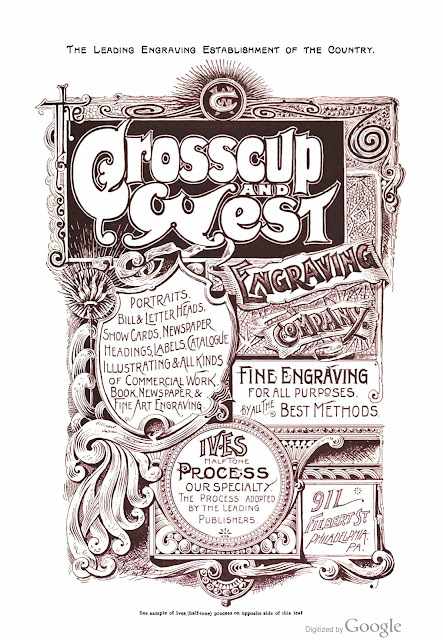
Lettering: Crosscup & West, Engravers
Business Directory of the Leading Wholesale and Retail Business Houses of Philadelphia for 1870
Advertisement below
1870s engraving of Philadelphia businesses below
The Pittsfield Sun
(Massachusetts)
November 27, 1872
Clark & Co., photographers, display a frame of fine specimens of wood engraving at the post office, such as views of buildings, machinery, monograms, book illustrations, &c., being agents for the celebrated engravers, Crosscup & West of Philadelphia. They will take orders for anything desired in this line.
Juniata Sentinel
(Mifflintown, Pennsylvania)
February 19, 1873
$5 to $25 Per Day—Agents Wanted
to sell a Beautiful Portrait, in oil colors, of
the Hero of Gettysburg, the late Maj. Gen.
Geo. G. Meade. Send $1 for outfit or 25 cts
for sample. Crosscup & West, 702 Chest-
nut St., Philadelphia. Pa.
The Cambria Freeman
(Ebensburg, Pennsylvania)
February 21, 1873
$5 to $25 Per Day—Agents Wanted
to sell a Beautiful Portrait, in oil colors, of the
Hero of Gettysburg, the late Maj. Gen. Geo. G.
Meade. Send $1 for outfit or 25 cts. for sample.
Crosscup & West, 703 [sic] Chestnut St., Philad’a.
The Petroleum Centre Daily Record
(Pennsylvania)
February 25, 1873
$5 to $25 Per Day—Agents Wanted
to sell a Beautiful Portrait, in oil colors, of the He-
ro of Gettysburg, the late Maj. Gen. Geo. G. Meade
Send $1 for outfit or 25 cts for sample. Cross
cup & West, 702 Chestnut St, Philadelphia. Pa.
1874 New Post Office
Broadway, New York
Crosscup & West 1876 advertisement can be viewed at Sheaff
American Enterprise: Burley's United States Centennial Gazetteer and Guide 1876
Crosscup & West (wood), 702 Chestnut street, 709.
Pettengill’s Newspaper Directory and Advertisers’ Hand-book for 1877
S.M. Pettengill & Co.
Advertisement below
Photographic Mosaics: An Annual Record of Photographic Progress
Edward L. Wilson, Editor
Edward L. Wilson, 1879
Advertisement below
Rowell’s American Newspaper Directory
1879
Small engravings of newspaper buildings
Around 1881 Frederic Eugene Ives joined Crosscup & West.
The Sunday-School World
December 1882
History of the Underground Railroad in Chester and the Neighboring Counties of Pennsylvania
Office of the Journal, 1883
Four photographs of men engraved by Crosscup & West
Undated Image
Silvia Dubois engraved by Crosscup & West
Scientific American
November 3, 1883
Advertisement; repeated December 1, 1883
Pagoda Shadows
Adele M. Fielde
W. G. Corthell, 1884
Pages 64, 91, 227 and 268 with photographs engraved by Crosscup & West
The Publisher’s Weekly
Advertisement, below, ran from February 23 to October 25, 1884.
The Publishers’ Weekly
Advertisement, below, ran from November 1, 1884 to March 20, 1886. Advertisement also ran in The American StationerThe Gardeners’ Monthly and Horticulturist and The American Florist.
The Publishers’ Weekly
November 21–28, 1885
Specimen of “Ives” Process, employed by the leading Publishers.
Philadelphia Inquirer
(Pennsylvania)
April 26, 1886
A Firm Name Dispute.
Crosscup & West, engravers, on Saturday filed a bill in equity for the protection of their firm name against Joseph H. Weeks and the Moss Engraving Company. The plaintiffs formerly did business at No. 702 Chestnut street, but afterwards moved to No. 717 Arch street. They alleged that the defendant, Weeks, while employed by them as a clerk, signed himself to correspondents as “manager,” and fraudulently secured possession of their order books. Recently he left their employ, and has since sent out circulars stating that he has “severed his connection with Messrs. Crosscup & West” and has “opened a branch office at the old stand, No. 702 Chestnut street,” the branch office being of the Moss Engraving Company. The plaintiffs ask the court to grant an injunction restraining him from publishing this circular, and from using their firm name in any business card, circular or advertisement.
Philadelphia Inquirer
(Pennsylvania)
December 17, 1886
Fully Vindicated.
The bill against Joseph H, Weeks, charged by Crosscup & West with carrying off their order book and customer list, has been dismissed by the court. Mr. Weeks is from Upper Merlon, and is the Philadelphia manager for the Moss Engraving Company of New York. He left his previous situation to engage with the above firm, and this charge was brought against him. No evidence, however, could be produced to satisfy the court of the justice or correctness of the allegation, and Mr. Weeks was accordingly exonerated.
Howard O. Sprogle
1887
Introduction.
…The etchings, including both scenes and portraits, are the work of the Crosscup & West Engraving Company.
Owego Daily Record
(New York)
July 20, 1888
Caught in the Act.
How a California Forcer’s Scheme Was Detected.
Philadelphia, July 20.—The prevention of a scheme to defraud two New York bank[s] out of thousands of dollars was brought to light last Tuesday in San Francisco, when Dr. R. M. Osburn of Kingsbury, Col, was arrested by detectives while going to the postoffice to get two blank plates of checks, which were made by Crosscup & West of this city, and by which he expected to reap a harvest of money.